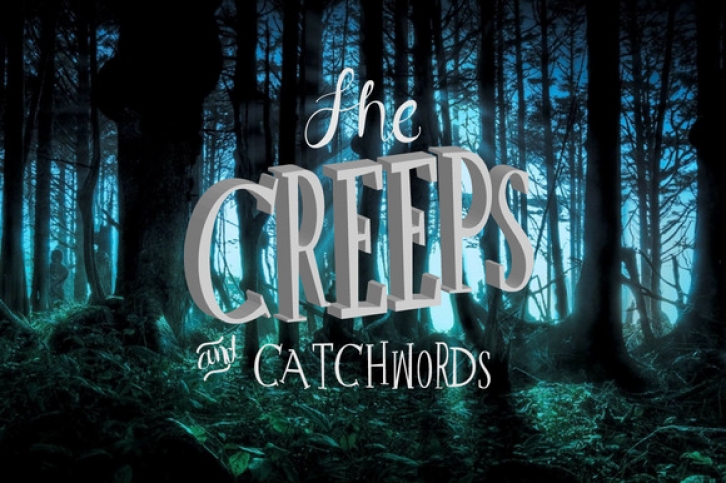
The Creeps is a new Display typeface with a horror touch and a non stable shape completed with catchwords to enhance your designs feel.
Could be used for various purposes such as logos, book covers, headings, t-shirts, signage’s, label’s, news, posters, badges and much more!